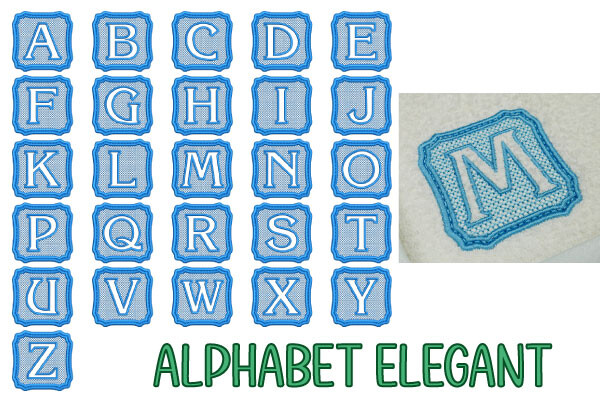
Elegant Alphabet – 7x7cm Embroidery Font
This elegant alphabet set includes all 26 uppercase letters in a classic, timeless style – perfectly sized at 7×7 cm for towels, napkins, and other home textiles. Ideal for monogramming gifts, wedding linens, or personalized decor. Clean stitching and compatible with most embroidery machines. Instructions in German. Please note: The sizes and stitches information shown below is for “A” and “a” in each size. This is provided as a summary of what is available in this download file. For the full dimension details of the 26 letters in this set, click on the More Sewing Info (PDF) button on this page. This machine embroidery design comes with multiple embroidery file formats and can be used with multiple embroidery machines.